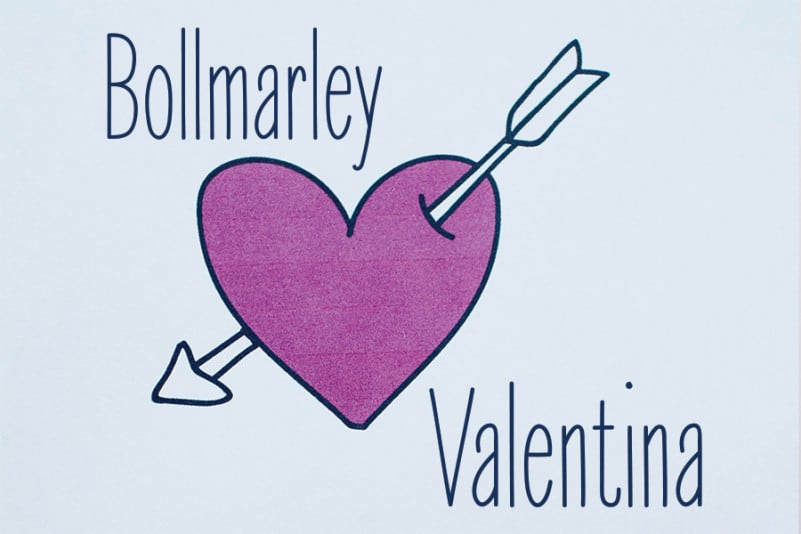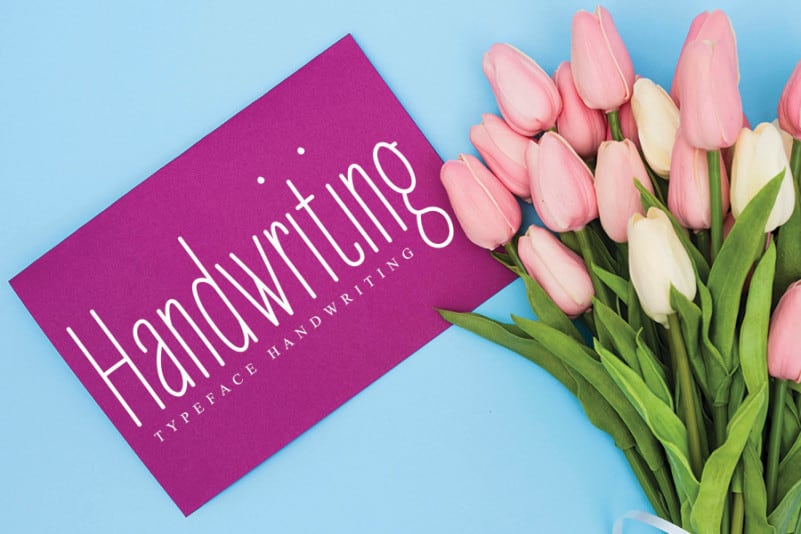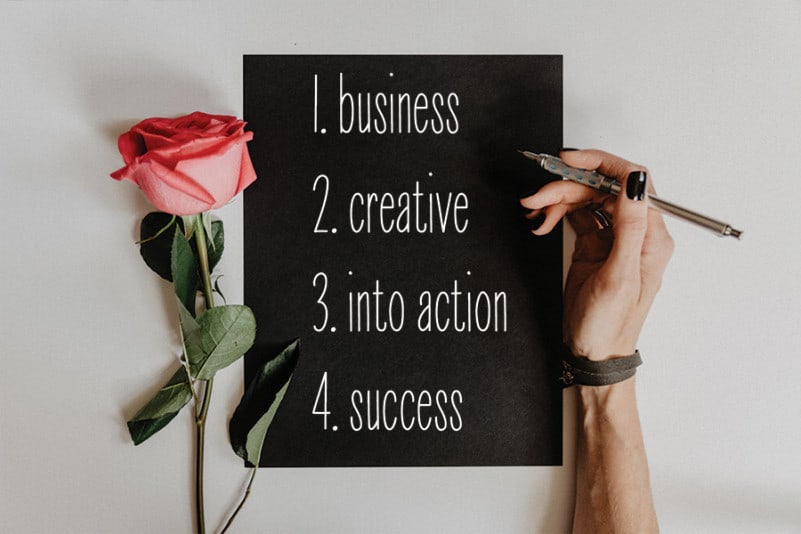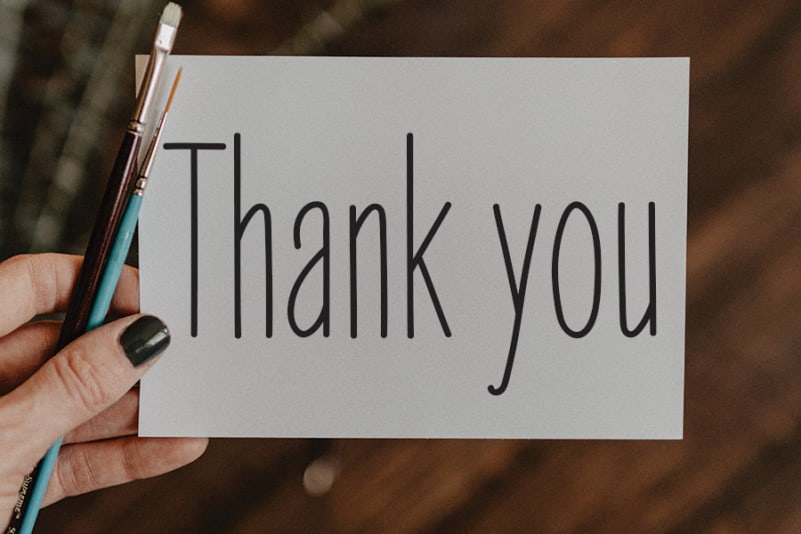
Cherry Blossom Display Font
Cherry Blossom Display Font is a simple and neat sans serif font. Natural and adept, this font will easily be matched to a wide variety of design ideas!